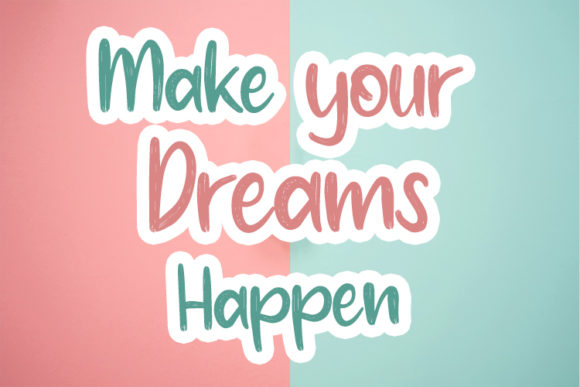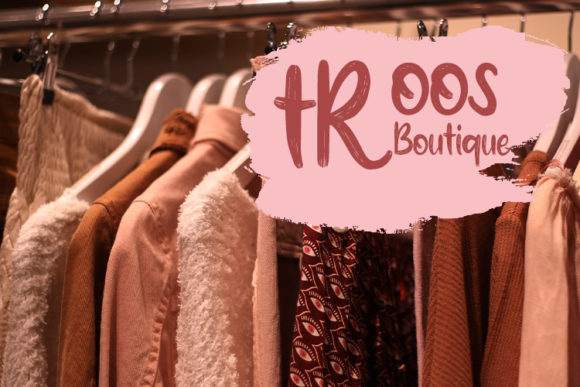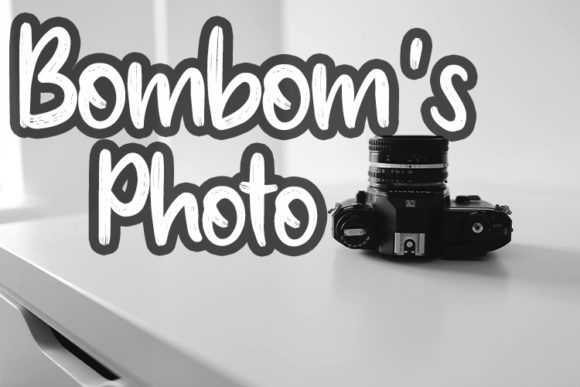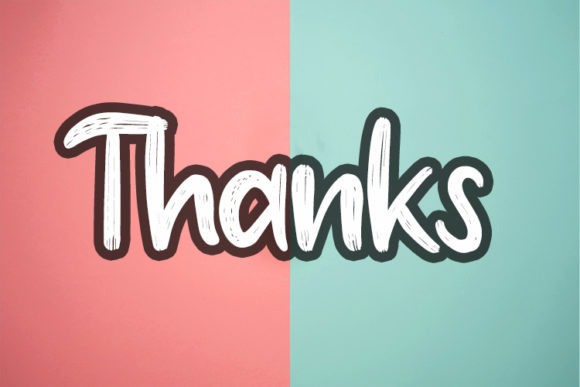
Baby Blue Font: A Sweet and Simple Handwritten Delight
Are you on the hunt for a font that exudes sweetness and simplicity? Look no further than the Baby Blue Font! Created with the aid of a brush pen, this charming handwritten font is sure to capture your heart with its incredibly versatile style. In this article, we’ll dive into the world of Baby Blue Font, exploring its features, uses, and why it’s a must-have for designers and crafters alike.
The Origins of Baby Blue Font
Baby Blue Font is a carefully crafted handwritten font, designed to bring a touch of warmth and personality to any design project. Its creator used a brush pen to bring out the subtle imperfections and nuances of handwriting, resulting in a font that feels both approachable and elegant. The end result is a font that is perfect for a wide range of applications, from digital designs to print materials.
What Makes Baby Blue Font So Special?
So, what sets Baby Blue Font apart from other fonts out there? Here are just a few of its standout features:
- Handwritten charm: Baby Blue Font boasts a beautiful, handwritten aesthetic that adds a touch of personality to any design.
- Versatile style: Whether you’re working on a digital project or a print design, Baby Blue Font adapts seamlessly to any style or theme.
- Easy to read: Despite its handwritten nature, Baby Blue Font remains clear and easy to read, making it perfect for body text or headings.
- Unique character set: The font includes a range of unique characters, such as ligatures and alternate glyphs, to help you add extra flair to your designs.
Uses for Baby Blue Font
With its versatility and charm, Baby Blue Font is suitable for a wide range of design projects, including:
- Digital designs: Use Baby Blue Font to add a personal touch to your website, social media graphics, or email newsletters.
- Print materials: Add a touch of elegance to your business cards, brochures, or flyers with this beautiful handwritten font.
- Crafting and scrapbooking: Baby Blue Font is perfect for crafters and scrapbookers looking to add a personal touch to their projects.
- Branding and packaging: Use Baby Blue Font to create a unique and memorable brand identity for your business or product.
Tips for Using Baby Blue Font
To get the most out of Baby Blue Font, here are a few tips to keep in mind:
- Pair it with contrasting fonts: Combine Baby Blue Font with a bold, sans-serif font to create a striking contrast.
- Experiment with colors: Try pairing Baby Blue Font with a range of colors to find the perfect match for your design.
- Don’t be afraid to get creative: Baby Blue Font is a versatile font that can be used in a variety of creative ways, so don’t be afraid to experiment!
In conclusion, Baby Blue Font is a sweet and simple handwritten font that is sure to capture your heart. With its incredibly versatile style and range of uses, it’s a must-have for designers and crafters alike. Whether you’re working on a digital design or a print project, Baby Blue Font is the perfect choice for adding a touch of personality and elegance. So why wait? Fall in love with Baby Blue Font and start creating spectacular designs today!